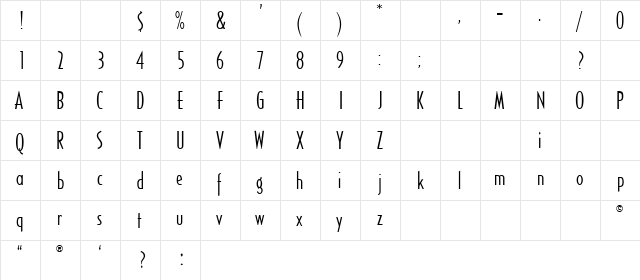
Sandyhill Regular
Design Context for Sandyhill Typeface
Sandyhill offers clean, dependable letterforms without strong stylistic allegiance, making it a practical choice for designers who need flexibility.
Pro Tip: Use Sandyhill in both headline and body roles to test its range before committing to a single application.